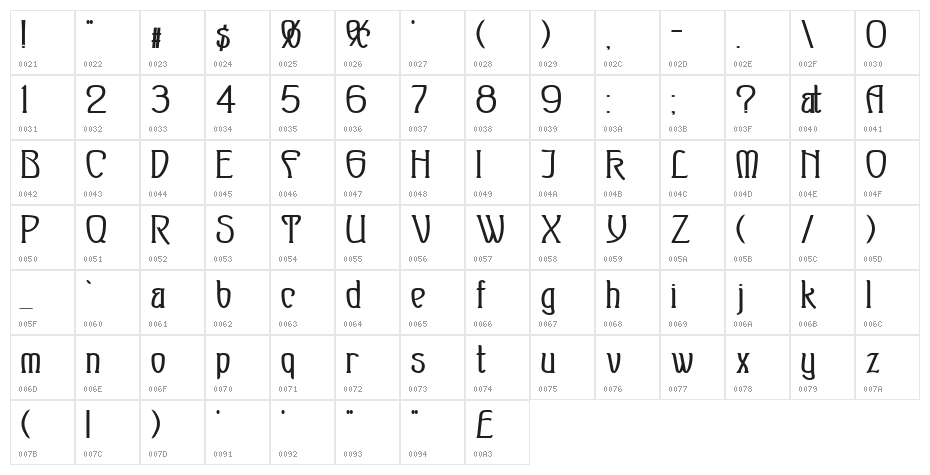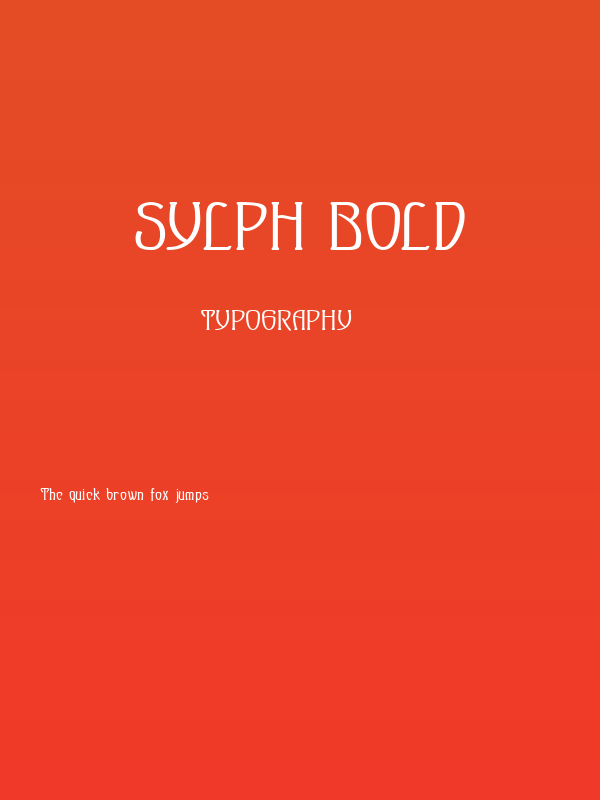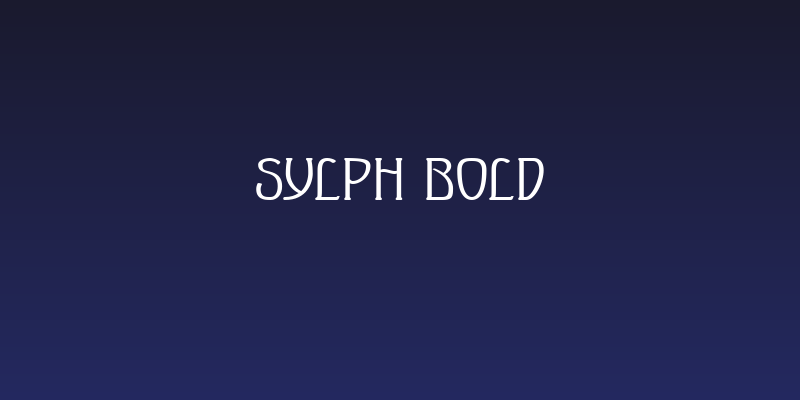
Sylph Bold Font
Sylph Bold Description
This font features a bold and modern design, characterized by clean lines and a strong presence. The uppercase letters are uniform in height, creating a balanced and cohesive look. The lowercase letters maintain a consistent style, complementing the uppercase set. The numerals are clear and easy to read, making them suitable for various applications. Special characters are included, adding versatility to the font's use. Overall, this font is designed to make a statement while remaining highly legible.
| Proposed Projects | Ideal for branding, headlines, posters, and digital media where a bold statement is needed. |